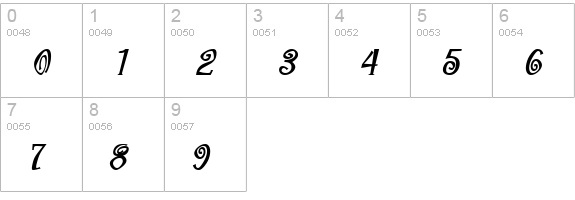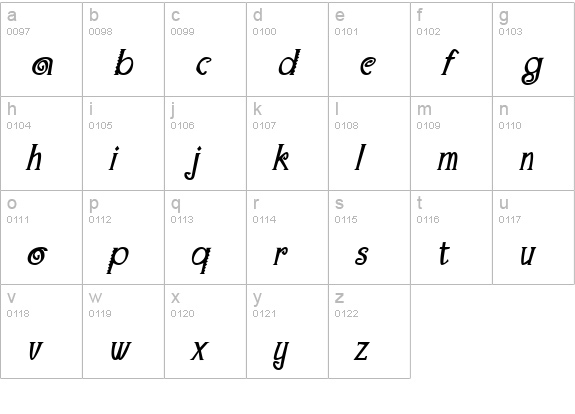
Maraca Bold Italic Font Details
Maraca Bold Italic is a strong, high-contrast, italic variant in the Maraca typeface family \xE2\x80\x94 well suited to headlines, attention-grabbing titles, and strong calls-to-action.
Maraca Bold Italic is a stunning and versatile font that combines boldness and elegance in perfect harmony. Its unique curves and slanted design add a touch of sophistication to any project, making it ideal for both headings and body text. This font exudes confidence and style, making it perfect for branding, logo design, advertisements, and much more. The bold and italic combination adds a touch of emphasis and flair, allowing your words to truly stand out. Maraca Bold Italic is not only visually striking, but it also offers a seamless reading experience. The carefully crafted letterforms ensure legibility at both small and large sizes, making it suitable for various mediums, including print and digital. One of the best features of Maraca Bold Italic is that it is available for free! You can easily download this extraordinary font at FontsMarket.com, where it is readily accessible for all your design needs. Whether you are a professional designer or a hobbyist, this font will undoubtedly elevate your projects to new heights. So why wait? Enhance your creative endeavors today with Maraca Bold Italic. Download it for free at FontsMarket.com and experience the limitless possibilities this font has to offer. Whether you're designing a website, creating a poster, or crafting a logo, Maraca Bold Italic is the perfect choice to make a bold statement.